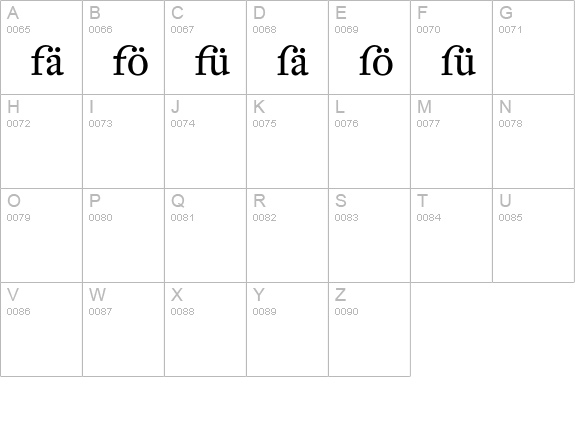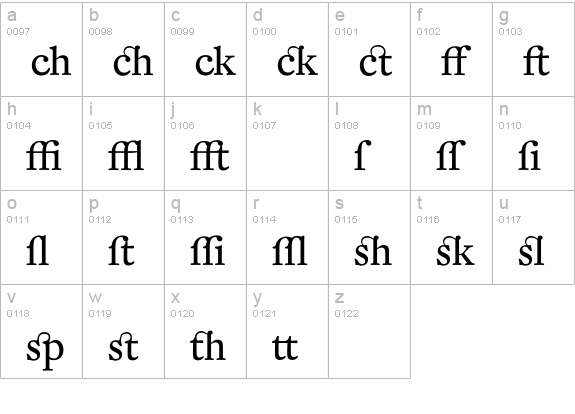
DTL Fleischmann T Regular Alt Font Details
DTL Fleischmann T Regular Alt is the standard, neutral variant in the DTL typeface family \xE2\x80\x94 well suited to general body text, paragraphs, and standard typographic work.
DTL Fleischmann T Regular Alt is a classic and elegant serif font that exudes sophistication and timelessness. With its clean lines, tall x-height, and distinct letterforms, this font is perfect for adding a touch of refinement to any project. The Alt version offers a slightly different design, providing versatility and options for creative expression. What makes DTL Fleischmann T Regular Alt even more appealing is the fact that it is freely available for download at FontsMarket.com. This means that you can easily access this high-quality font without any cost, making it a valuable addition to your font library. Whether you're working on a design project, branding materials, or any other creative endeavor, DTL Fleischmann T Regular Alt is sure to elevate your work with its timeless charm and versatility.